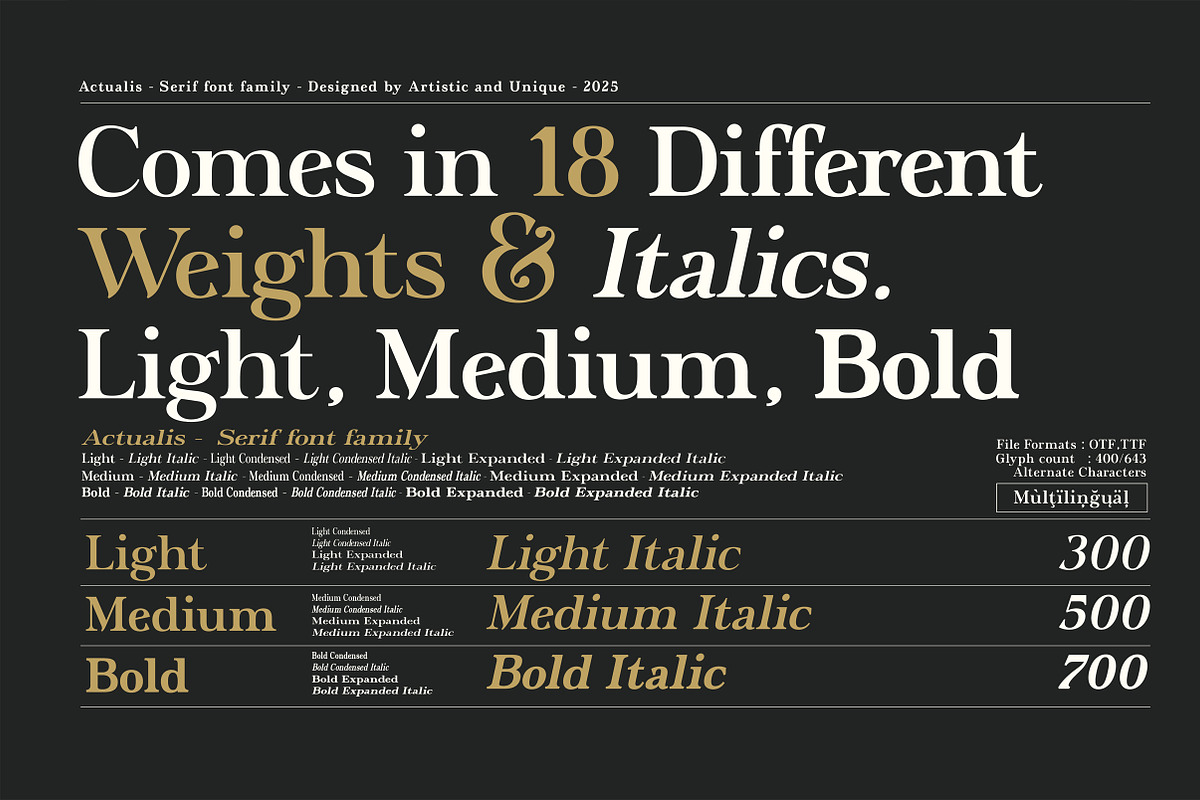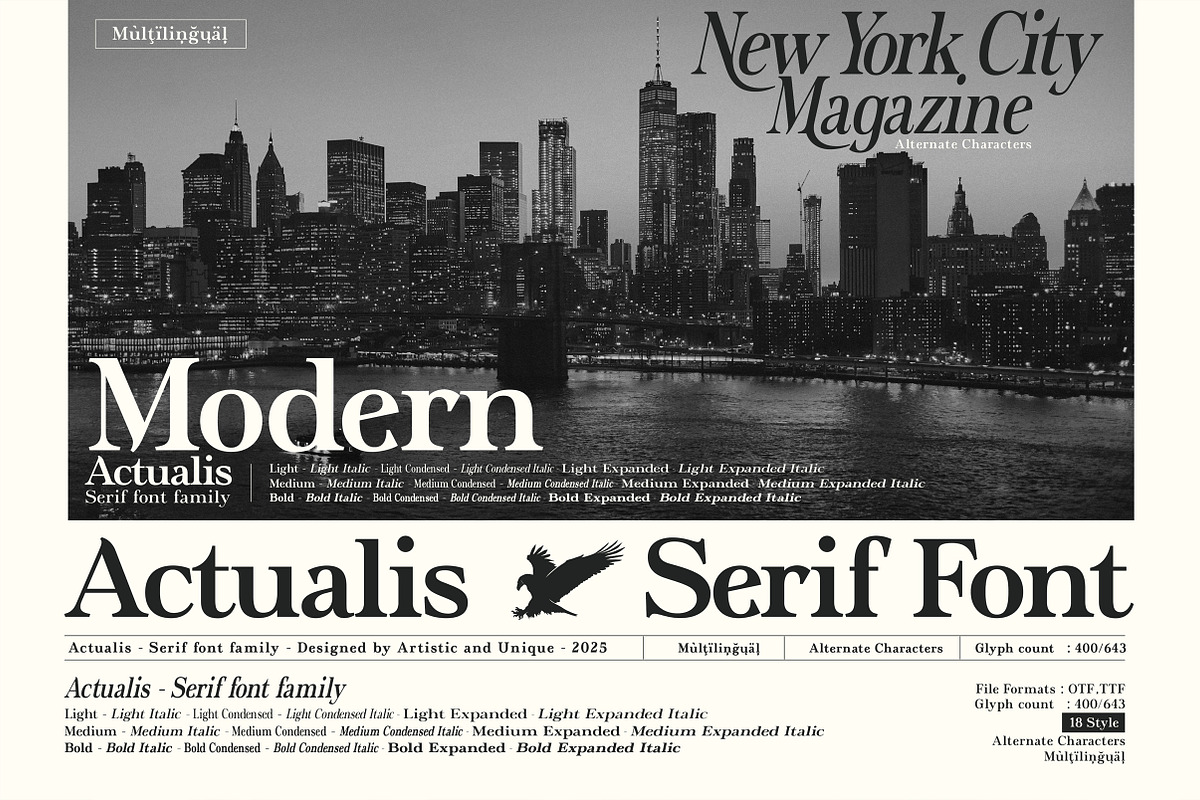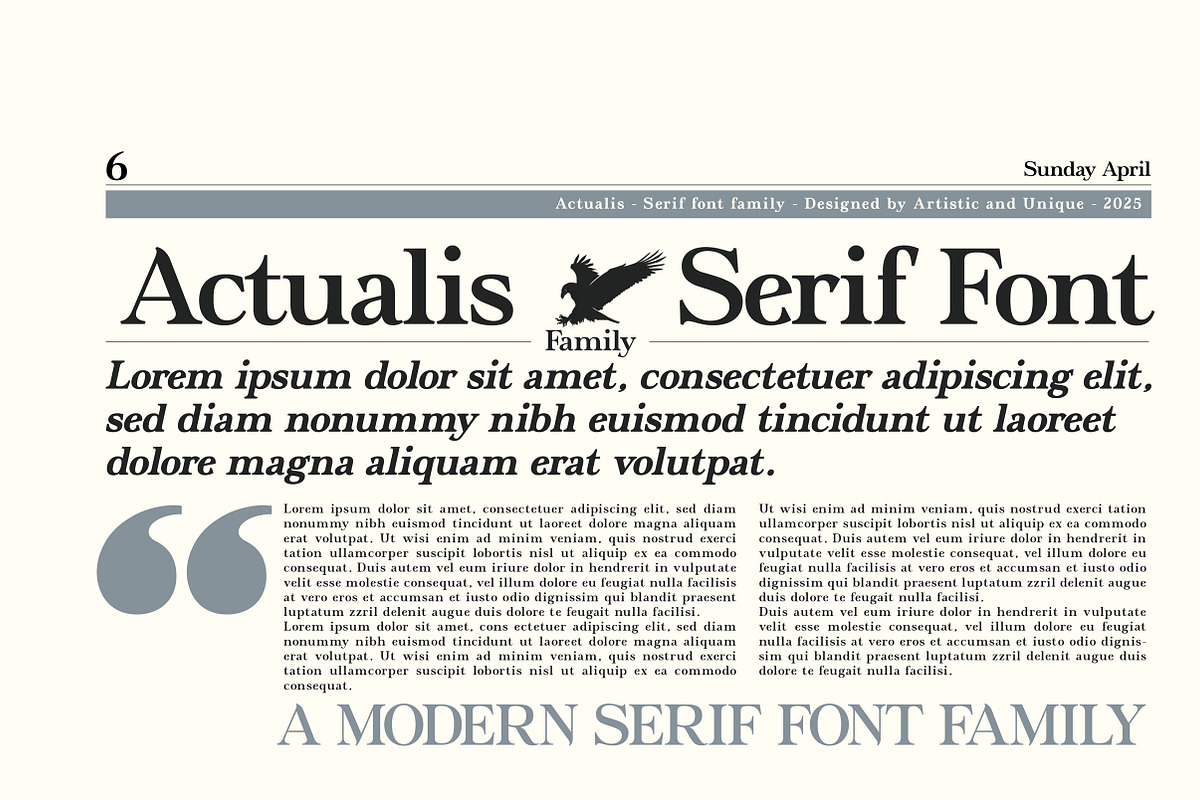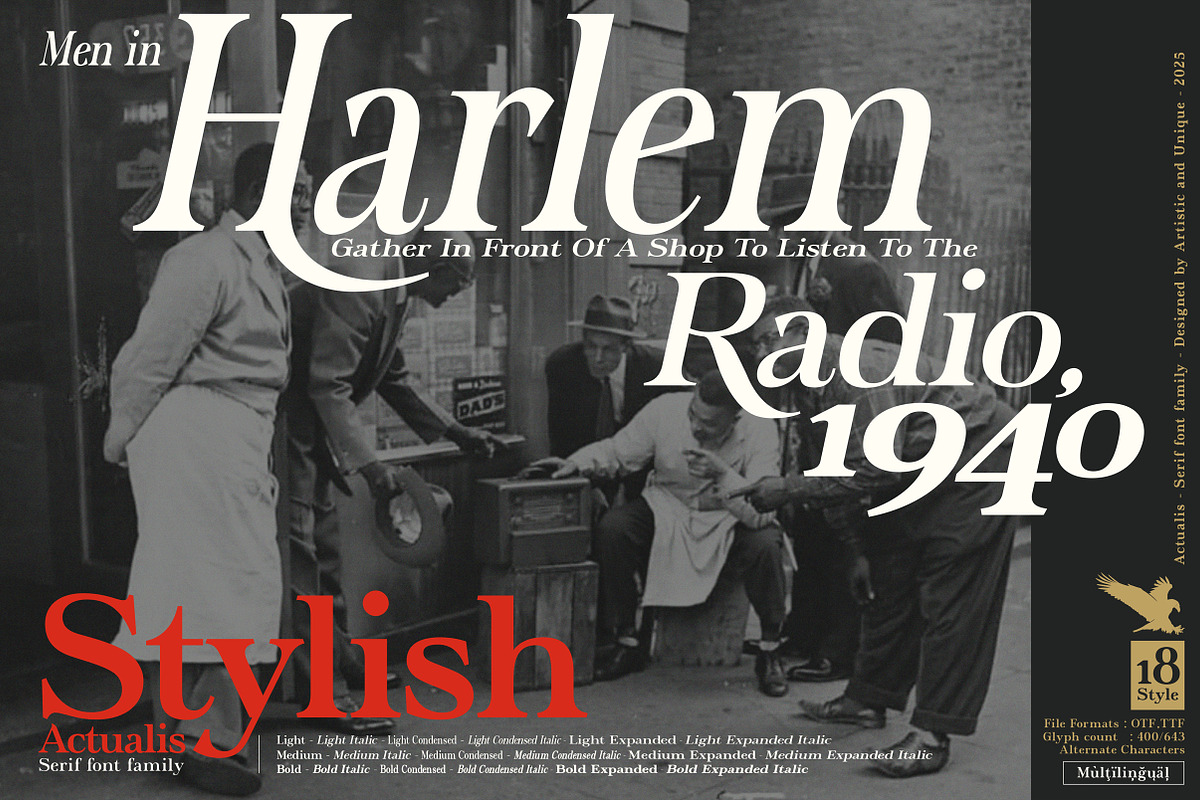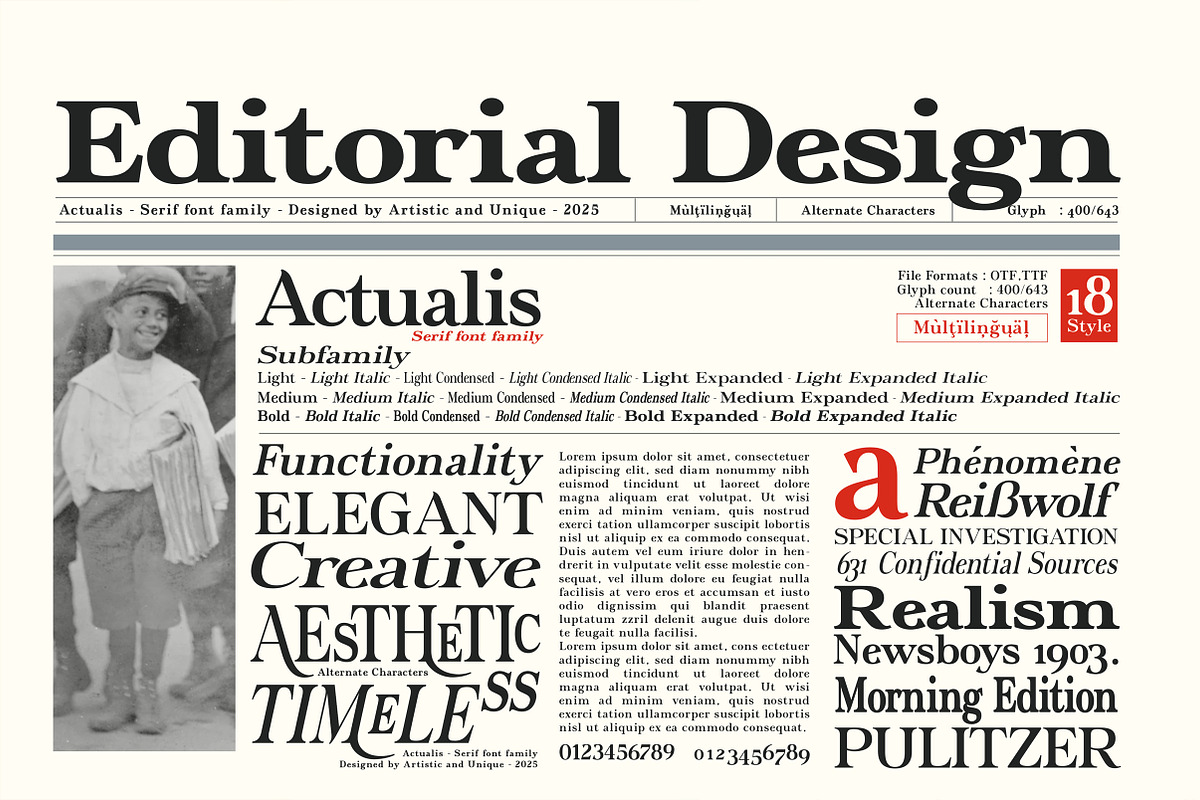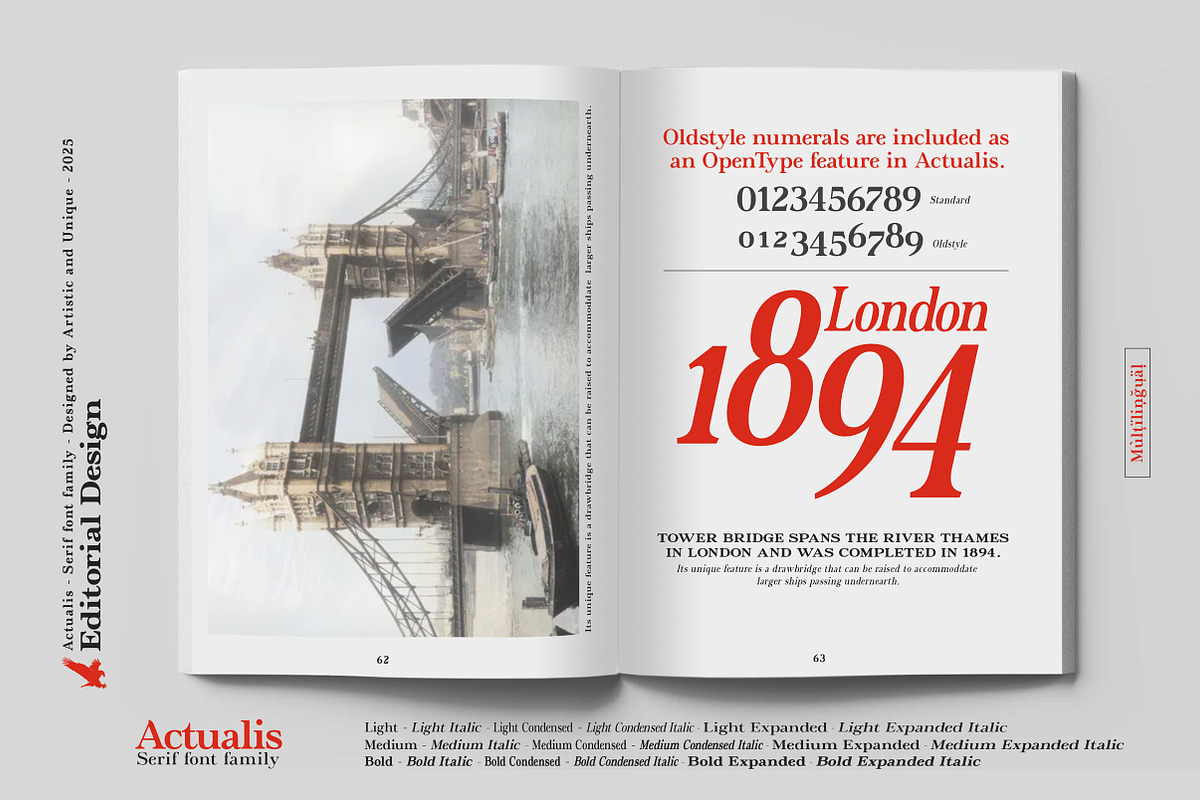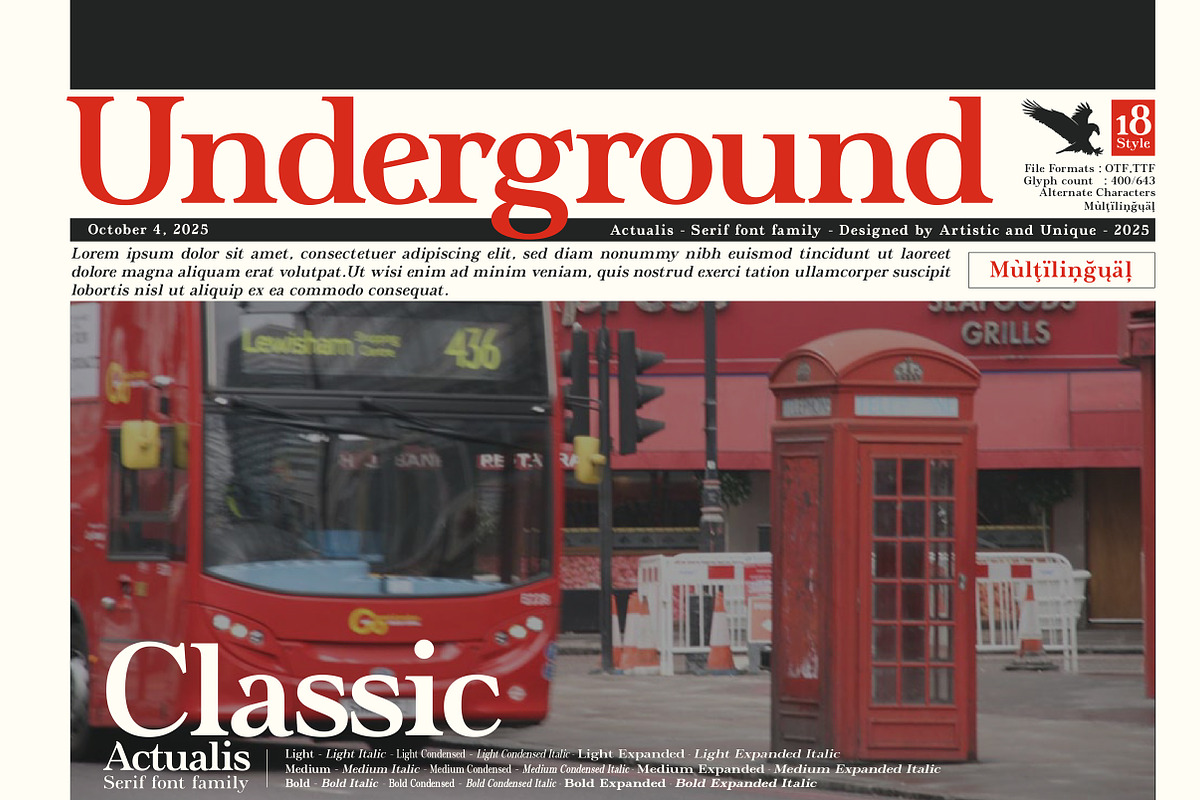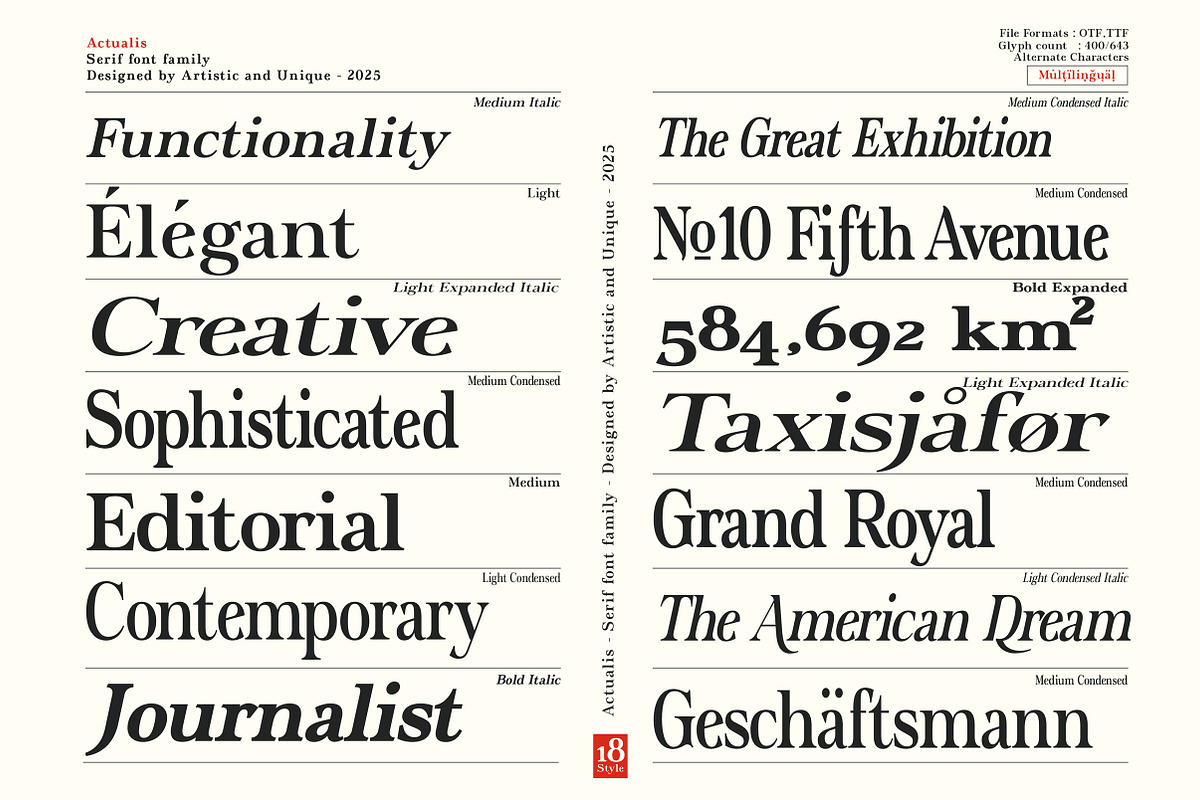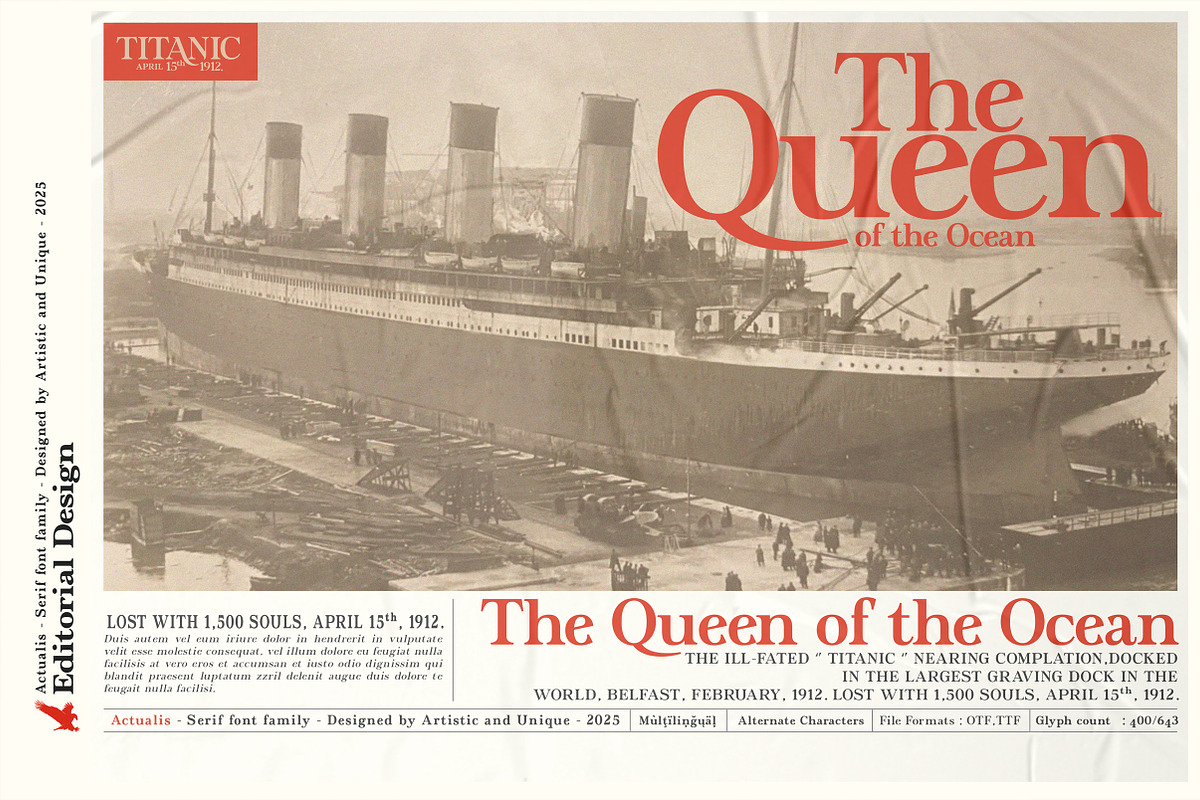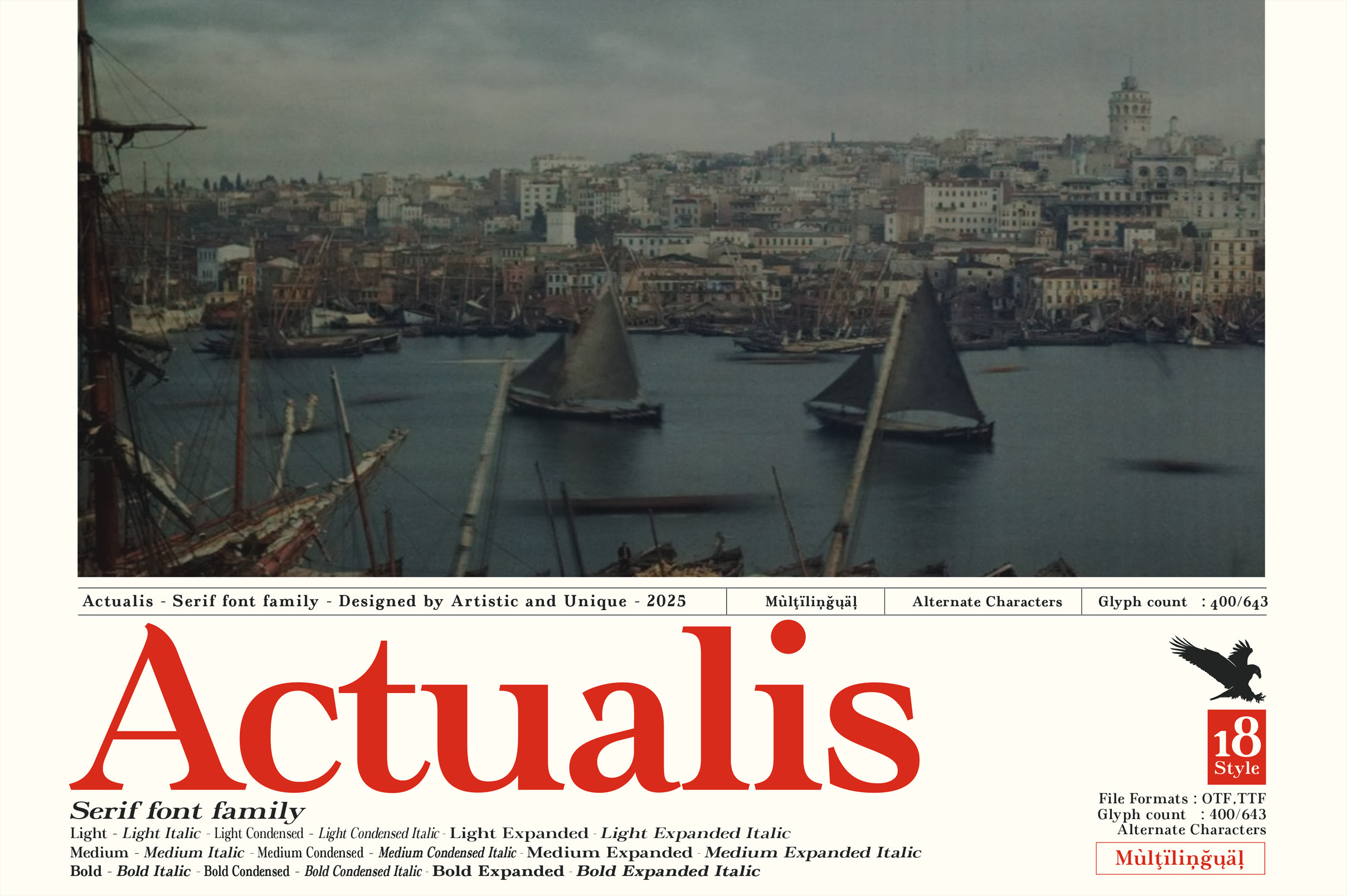
Actualis - Serif Font Family
Actualis - Serif Font Family - 18 Styles - Multilingual Support.
While Actualis Serif font may look like a classic serif font, its modern nuances make it a sophisticated style that meets today's needs and perfectly suits a variety of design projects.
With eighteen different styles and comprehensive multilingual support, this font enriches your content with unique character options.
Actualis is perfect for a variety of applications, from editorial to branding and web design. Whether creating editorial work or creating unique brand identities, designers will find the flexibility to create impressive typographic compositions in Actualis. Known for its elegant appearance, this serif font is particularly suitable for editorial use and brand and product design projects that require a touch of elegance.
- 18 Different Styles - Offers a wide range of creative options.
- Rich Glyph Options - Includes a variety of characters.
- Subscript/Superscript/Symbols - Simplifies complex typographic needs.
- Style Alternatives - Enhances visual appeal with unique variations.
- Multilingual Support - Easily integrates with various languages.
- Perfect for Versatile Design Use - Ideal for branding and editorial projects.